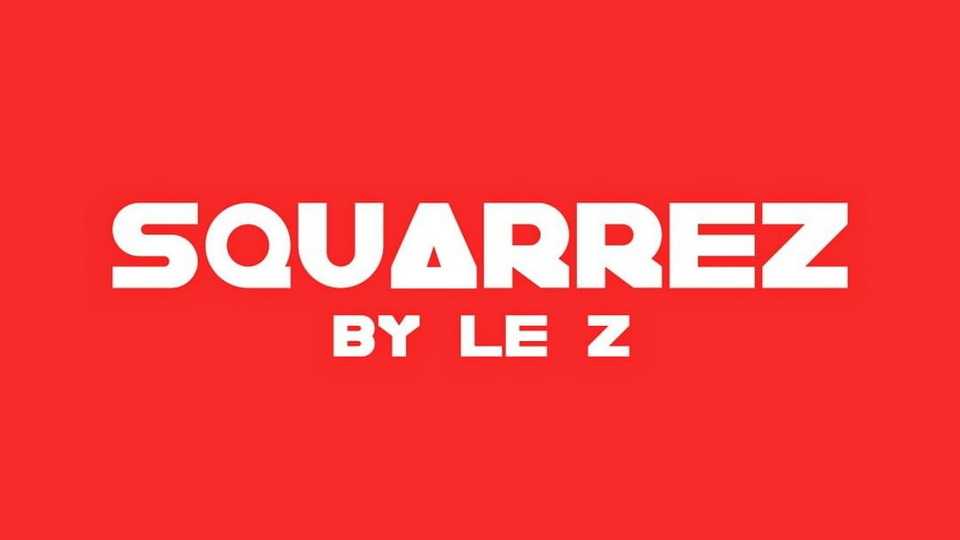
Download Squarrez font, a perfectly squared display typeface with a bold and powerful personality. Squarrez is perfect for logo, headlines, poster, and many other things that needs a strong impact.
Designer: Zacharie Guet